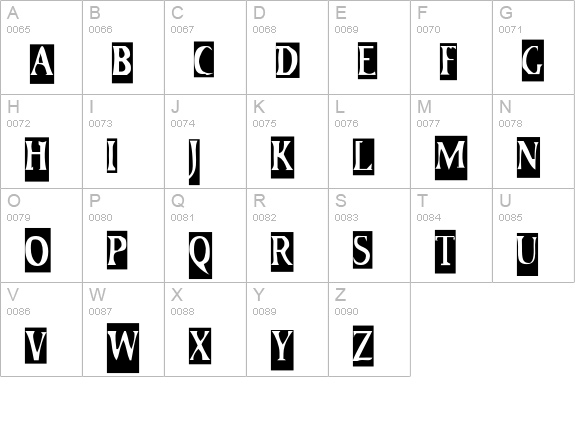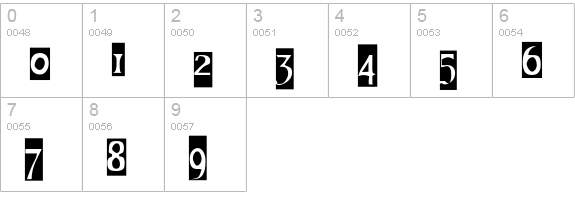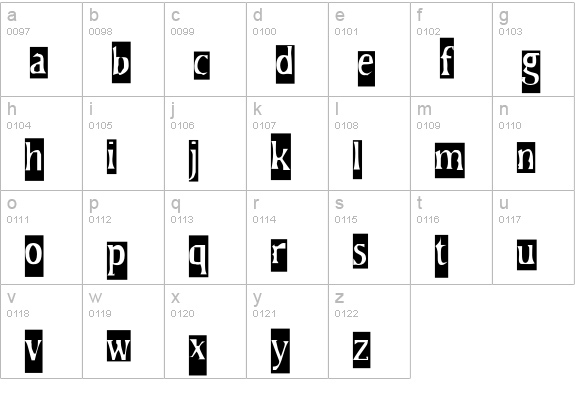
HateNoteExtortionate Font Details
Introducing HateNoteExtortionate, a captivating and edgy font that is sure to make a bold statement with its unique and daring design. This font is perfect for those who want to add a touch of rebelliousness and attitude to their projects. HateNoteExtortionate features sharp and angular letterforms that exude a sense of power and intensity. Its distinctive style is reminiscent of graffiti art, making it ideal for urban-themed designs, album covers, posters, and more. What sets HateNoteExtortionate apart is not only its striking appearance but also its versatility. This font can be used for both headlines and body text, allowing you to create cohesive and impactful designs. With its bold presence and strong character, HateNoteExtortionate demands attention and ensures that your message will be heard. But the best part? HateNoteExtortionate is absolutely free! You can easily download this font at FontsMarket.com, where a vast collection of high-quality fonts awaits you. Whether you're a professional designer or a hobbyist, this font is freely available for you to use in your personal and commercial projects. Don't miss out on the opportunity to elevate your designs with HateNoteExtortionate. Download it now and let your creativity run wild with this captivating and rebellious font.